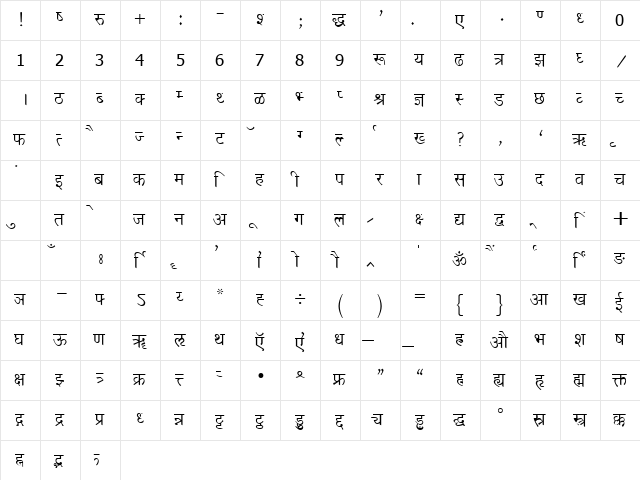
Kundli NormalA
Design Context for Kundli Typeface
Kundli is a composed and adaptable typeface that performs quietly and consistently across a wide range of design contexts.
Pro Tip: Pair Kundli with a font of contrasting weight or personality to build a more expressive typographic hierarchy.